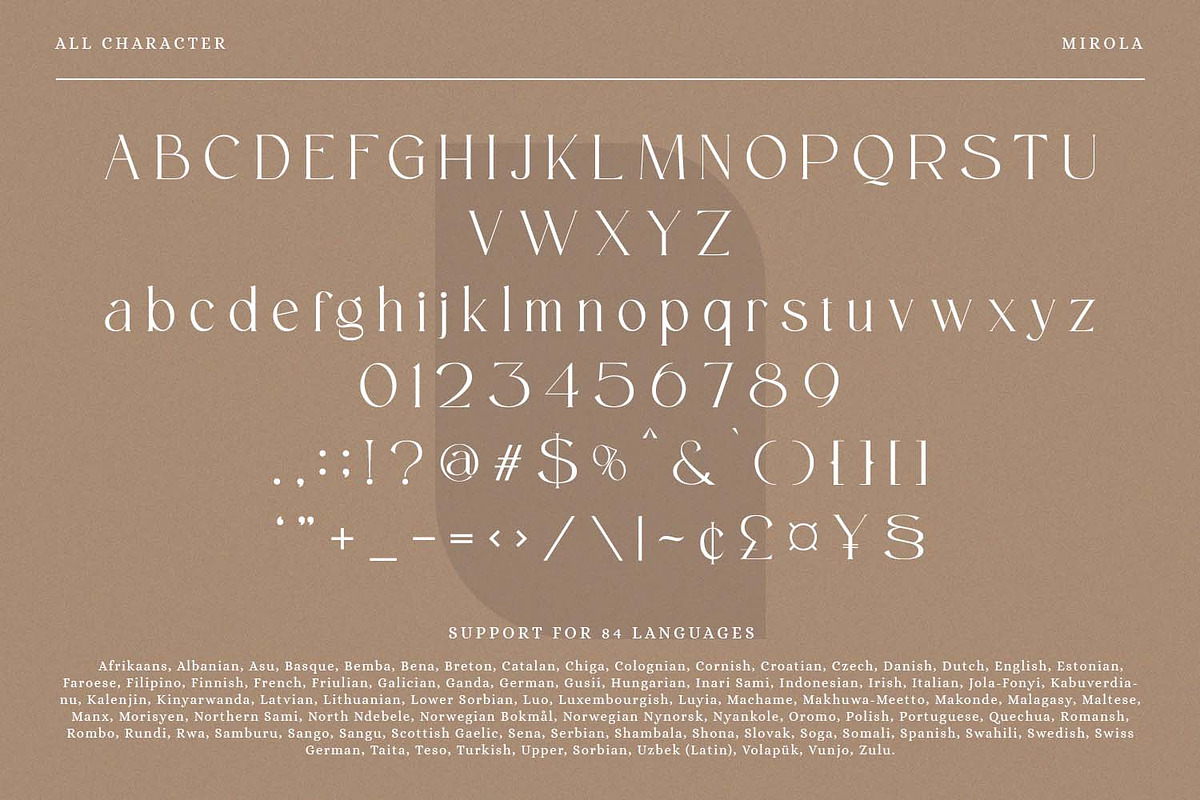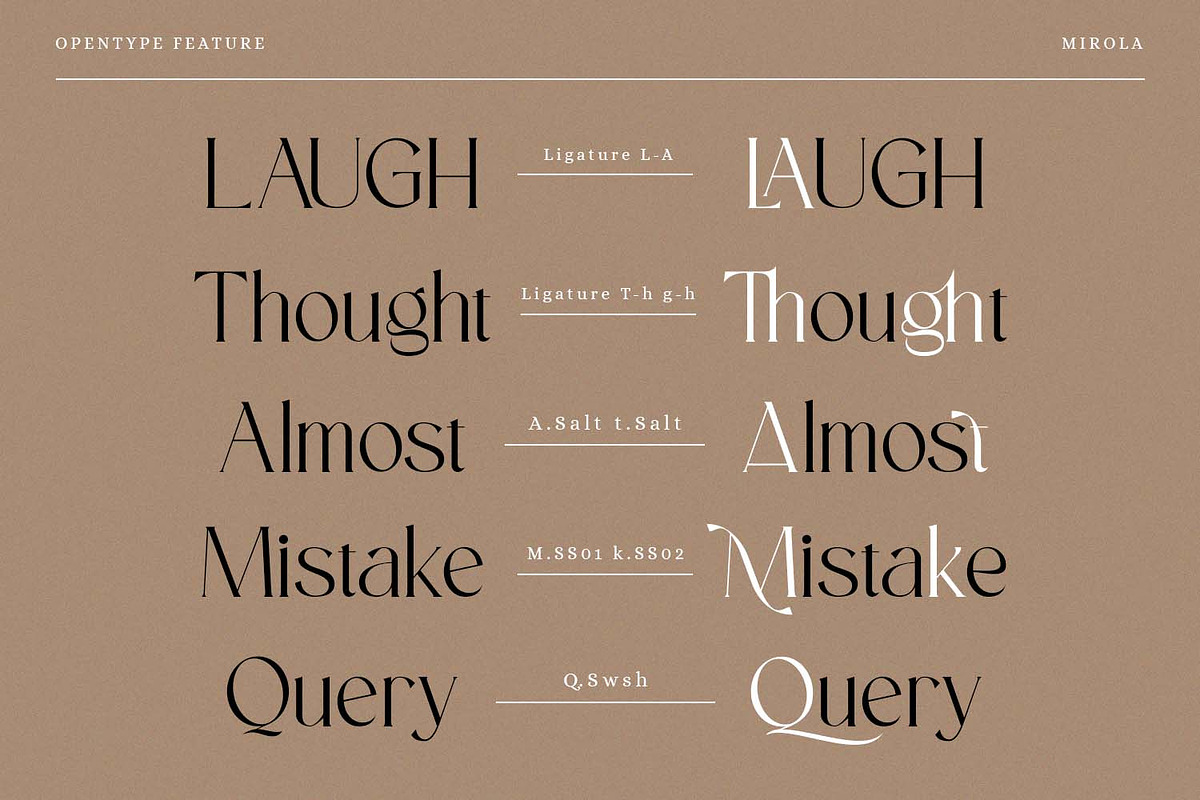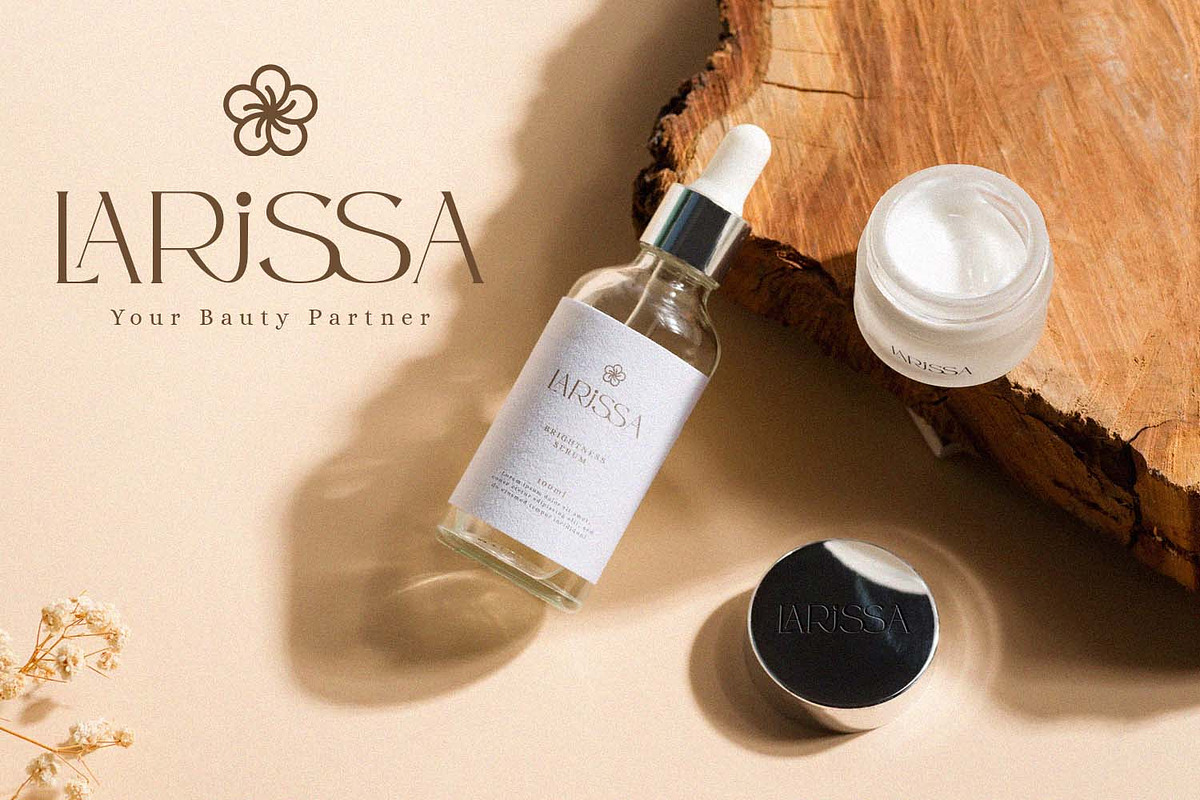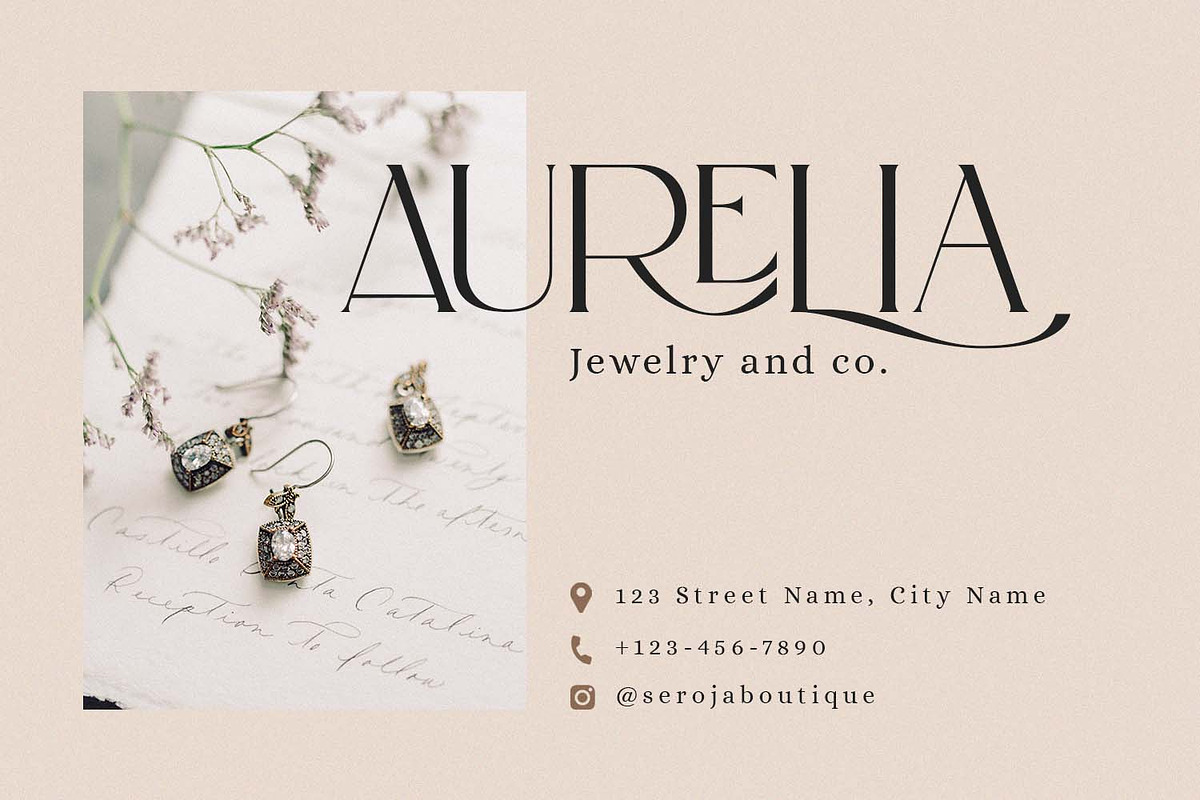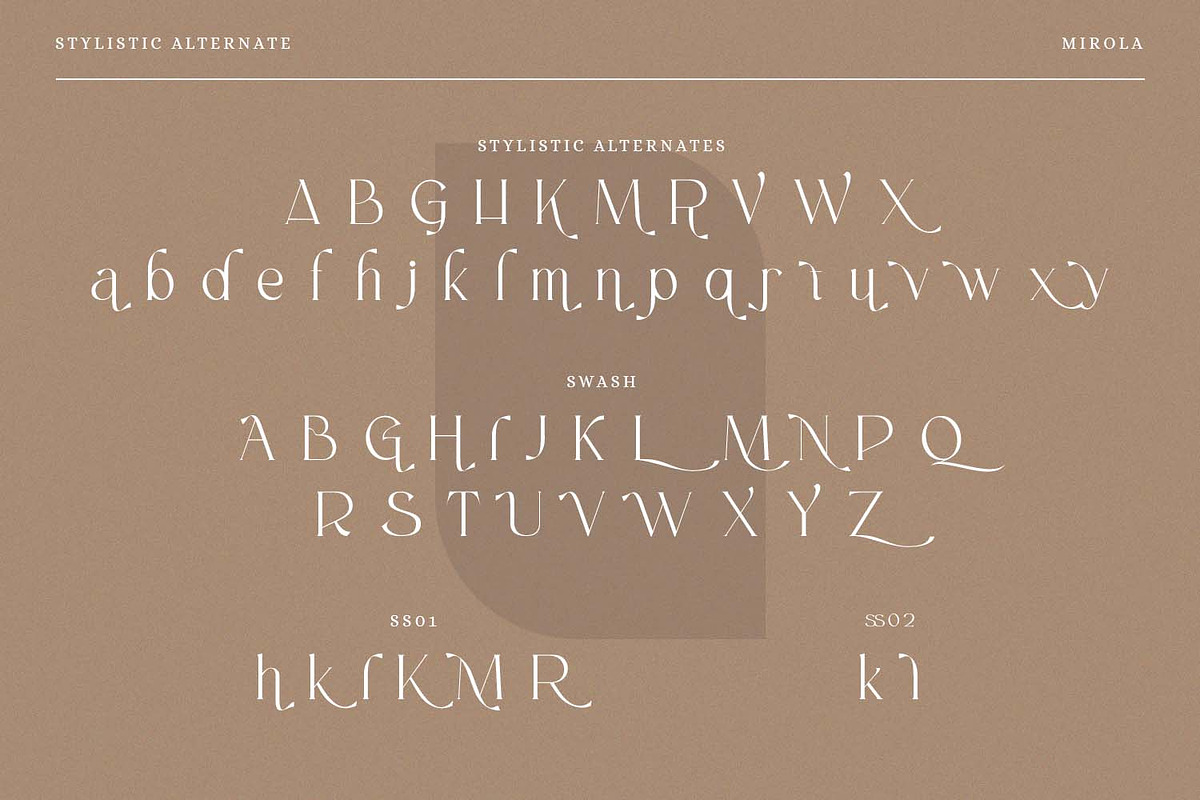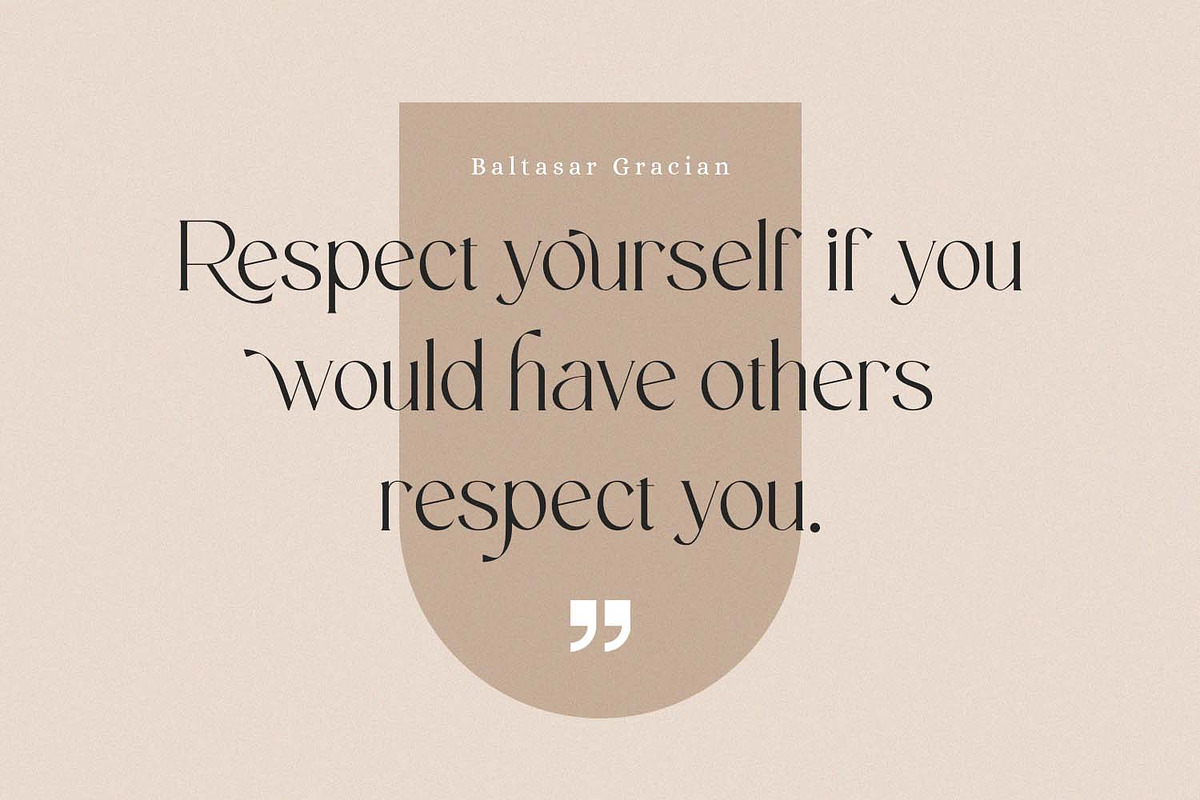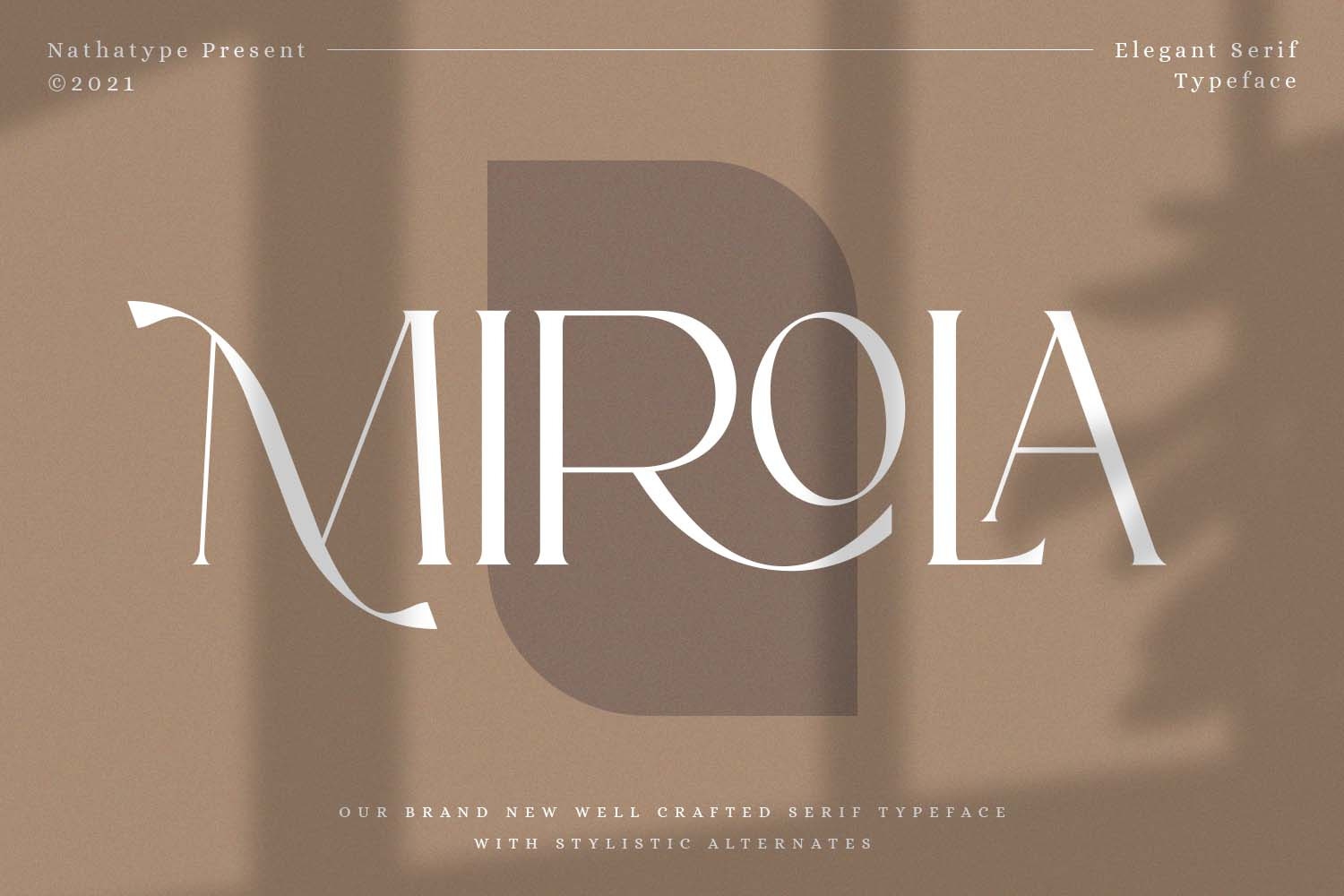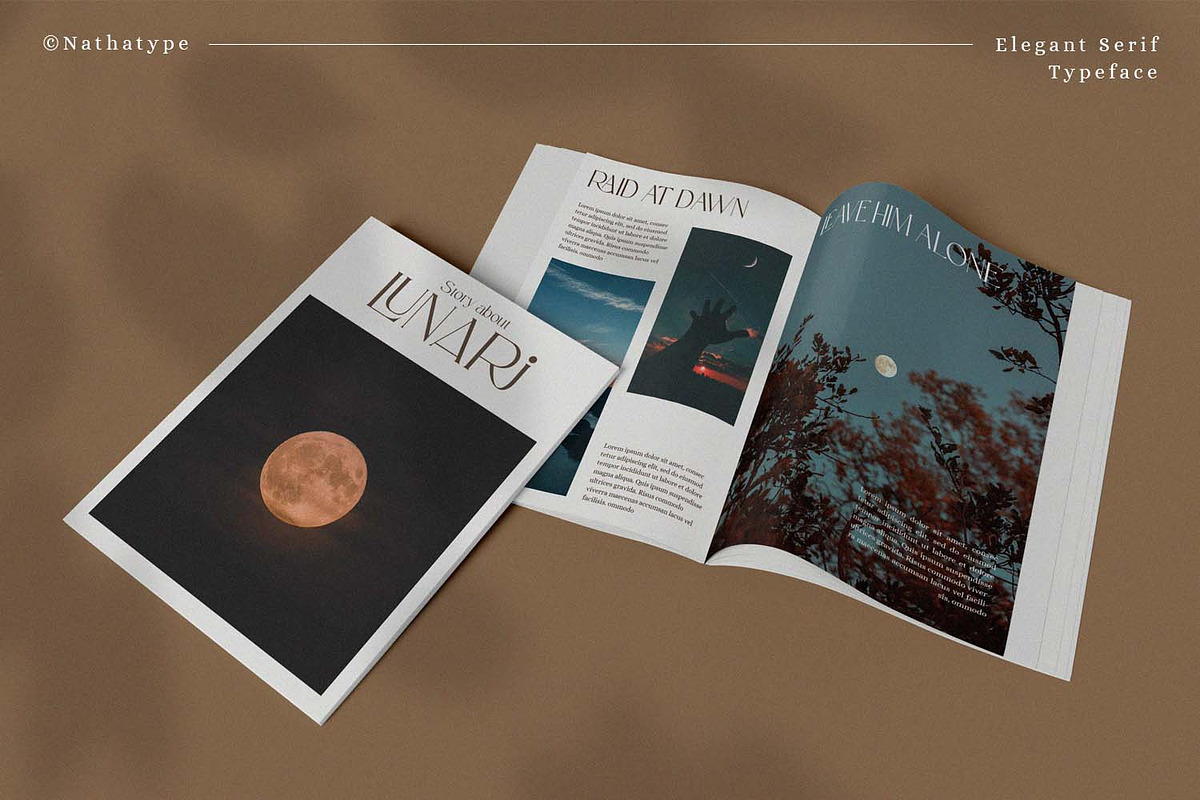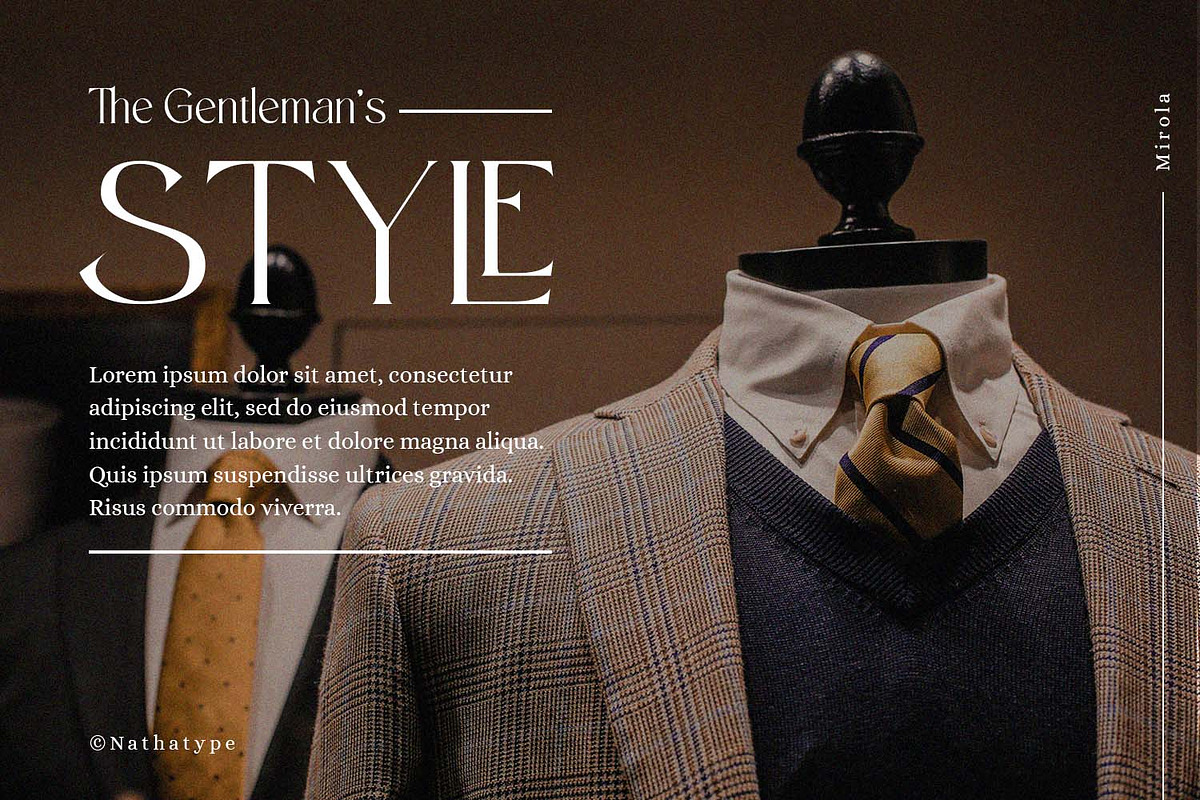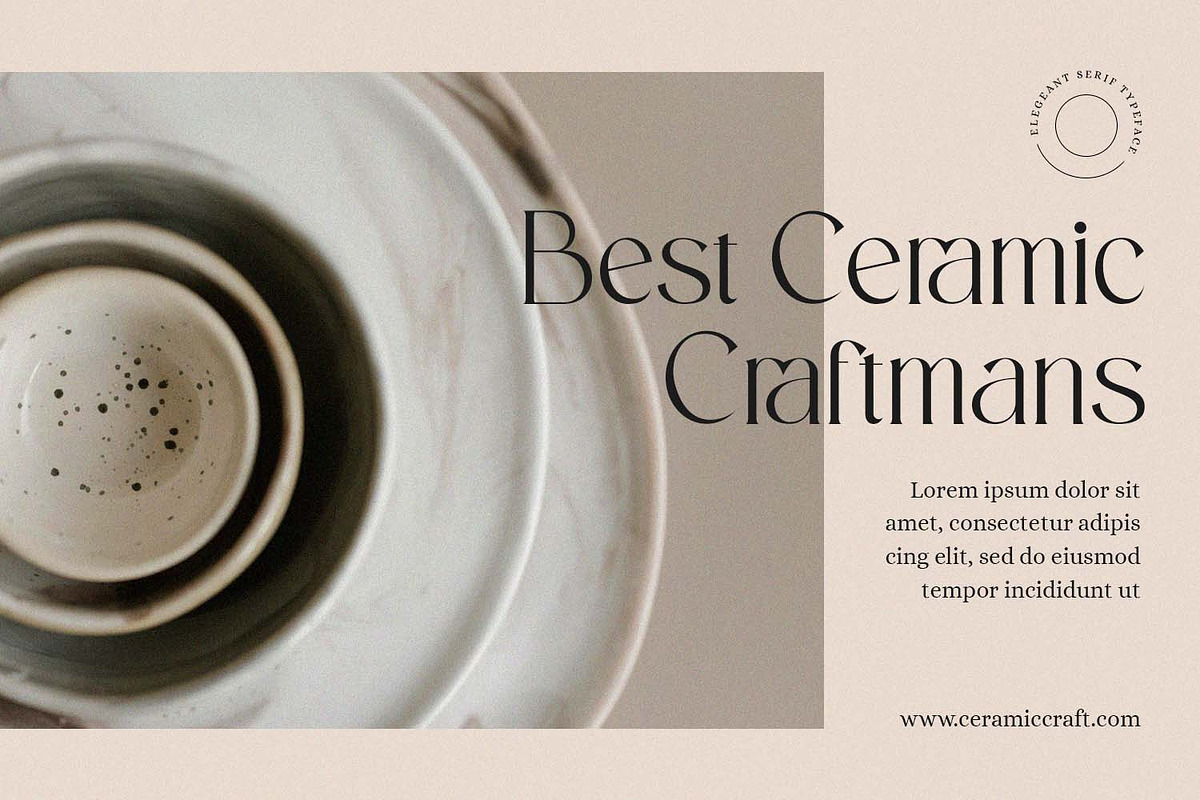
Mirola - Elegant Serif Font
Mirola-Serif Font
Mirola is a serif that is aimed to be used in modern style. It fits right in with your designs. It’s beautiful without trying too hard, it’s gorgeous without being apologetic, it’s brave in the face of uncertainty, these all represent you. Go ahead and use it on your website, for your social media branding, Pinterest banners, printed invitations, and more!
- Stylistic Set